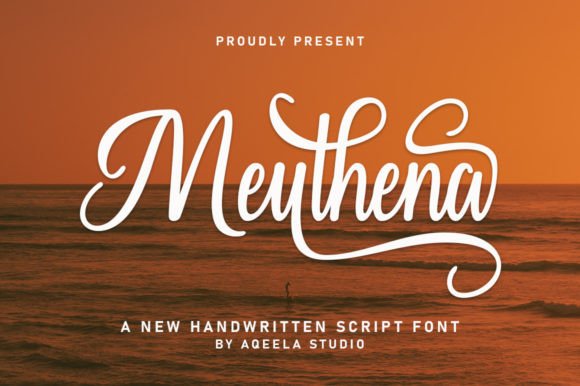
Immerse yourself in the captivating charm of Meuthena, a resplendent handwritten font that radiates sophistication and elegance. Its masterful strokes, reminiscent of timeless calligraphy, impart a classic allure to any creative endeavor. Whether you're crafting heartfelt cover letters, designing enchanting invitations, or creating stunning social media posts, Meuthena is the perfect font to elevate your words and make a lasting impression.
Step into a world of refined beauty, where your messages come alive with an air of grace and distinction. Meuthena's meticulously crafted characters, each a testament to artistic excellence, will transform your words into visual masterpieces. Its innate versatility allows it to seamlessly adapt to a multitude of design styles, adding a touch of sophistication to any project.
Indulge in the luxurious embrace of Meuthena, a font that captures the essence of timeless elegance. Its contemporary atmosphere effortlessly blends with the charm of classic calligraphy, creating a visual symphony that captivates the senses. Experience the sheer joy of using Meuthena, as its impeccable form guides your creative vision and elevates your designs to new heights.
Embrace the power of Meuthena and watch as your creations flourish with an aura of sophistication and refinement. Its meticulously designed curves and flourishes add a touch of magic to your words, transforming them into captivating works of art. Let Meuthena be your creative muse, inspiring you to craft designs that leave an indelible mark on the hearts of your audience.
Immerse yourself in the enchanting world of Meuthena, a font that embodies the essence of timeless beauty and contemporary charm. Its elegant strokes, reminiscent of a master calligrapher's hand, will add a touch of sophistication and class to any project. Discover the endless possibilities that await you with Meuthena, a font that is sure to make your creative dreams a reality.